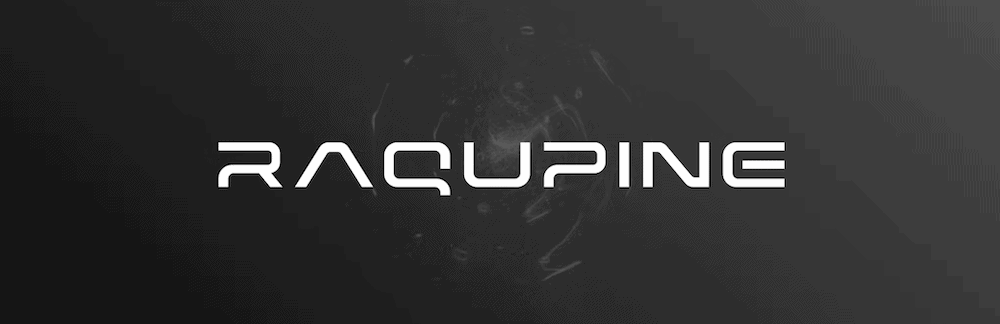
16 Space Fonts for Out of this World Design Projects for 2023
It’s often a challenge to position a business as forward-thinking and innovative. This is especially true for tech businesses and other industries on the cutting edge. ‘Space fonts’ are ideal, because they immediately evoke those sorts of feelings. However, you can also apply this to events such as club nights, certain types of musicians such as Electronic Dance Music (EDM) acts, and more.
For this post, we’re going to roundup some of the best space fonts we can find, and give you some tips on how to use them. First, let’s talk about how to choose the right font for your needs.
How to Choose the Right Space Font for Your Project
We admit, the term “space fonts” is a broad one that can cover many different bases. The list we’re going to present reflects this wide scope. Some fonts will look like they’ve come from another planet, whereas others are ‘kitsch’ and nostalgic.
Regardless, there are three facets you’ll want to bear in mind when you choose the right space font:
• Make sure it’s readable. You’ll see that some of the fonts on this list have custom lettering that won’t fit typical conventions. As such, make sure you still keep readability high, regardless of how you use your space font.
• Make sure it fits your project. Of course, you’ll want to ensure that the font or typeface you choose is appropriate for your project. It won’t be enough to slap on any old space font. With these, you want to evoke a feeling for your readers.
• Choose a good pairing font. Most of the fonts on this list will be for displays. As such, you’ll want a readable pairing that you can use for body copy too. Classic designs such as Arial and Helvetica are ideal (more of which in a minute.)
From here, you can begin to browse some of the space fonts available to see if they fit your project.
How to Mimic the NASA and SpaceX Fonts
If your project requires it, you can present a rough approximation of the NASA and SpaceX typefaces. While you don’t want to look to pass off your project as official, parody could work in some cases.
Over the years, NASA has used two different logos – the ‘meatball’ insignia and the ‘worm.’ While both of these are not full typefaces, you can use free fonts to get close. First, Nasalization is a near approximation of the worm:
The Nasalization font.
To replicate the insignia, you could use Nasa Serif:
The NASA Serif font.
Much like any other institution with branding, NASA has guidelines on typefaces and usage that might be relevant depending on your project. However, Helvetica Bold is in use on the side of spaceships. This is typically a system font that can not only give off a ‘space exploration’ vibe, it’s a readable and accessible font too.
As for SpaceX, its logo uses a custom design that’s again not a full typeface. The nearest you’ll get is using something like Bank Gothic. However, it’s not an exact match, so you may have to look to another space font for your needs.
16 Space Fonts for Out of this World Design Projects
Over the rest of the roundup, we’ll look at some fantastic space fonts that will suit lots of different types of projects.
1. MBF Space – Our Top Pick
The MBF Space font.
The MBF Space font is one of the best available, and is our top pick. While this font will never be body copy, you’ll use it for headings, displays, posters, workmarks, and more.
It’s a thin and minimalist space font with custom lettering. However, it’s still legible at smaller sizes. Its rounded edges help with this, and as such, you’ll be able to apply all sorts of spacing to match your dimensions.
Why It’s Our Top Pick
MBF Space is super versatile. You can use it to hark back 70s sci-fi films such as Alien alongside fonts such as Alien League and Future Condensed Extra Bold. In contrast, you might also use this for modern applications that need to appear to be innovative. Overall, MBF Space is minimalist, yet distinctive and flexible.
2. Meteorite
The Meteorite font.
We’d bet that Meteorite will have only a handful of viable uses. However, as a space font, it’s an undeniable winner for decorative displays.
You’ll get both uppercase and lowercase lettering, complete with numbers. Each letter design comes with ‘meteor damage’, and despite its unique presentation, also offers readability at smaller sizes.
3. Urban Space
The Urban Space font.
Urban Space is the first example on this list of a nostalgic space font. Lots of designers will either choose a hyper-modern minimalist font, or something that comes from a 50s idea of space travel.